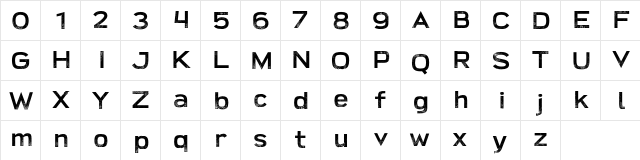
Broadwell-Personal-Use-Only Distressed
| Style | Distressed |
| Foundry | Parker Creative, LLC. |
| Designer | Alan Parker |
Design Context for Broadwell-Personal-Use-Only Typeface
Broadwell-Personal-Use-Only trades polish for personality, using distressed and eroded forms to bring grit and attitude to creative work.
Suited to punk-influenced zines, underground music branding, streetwear, and raw, anti-corporate design.
Pro Tip: Pair Broadwell-Personal-Use-Only with intentionally raw or lo-fi design elements. Fighting against it with overly polished surroundings will undermine its personality.